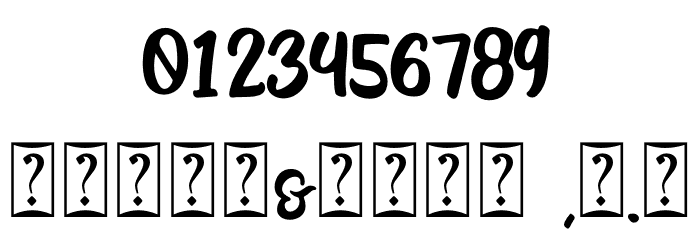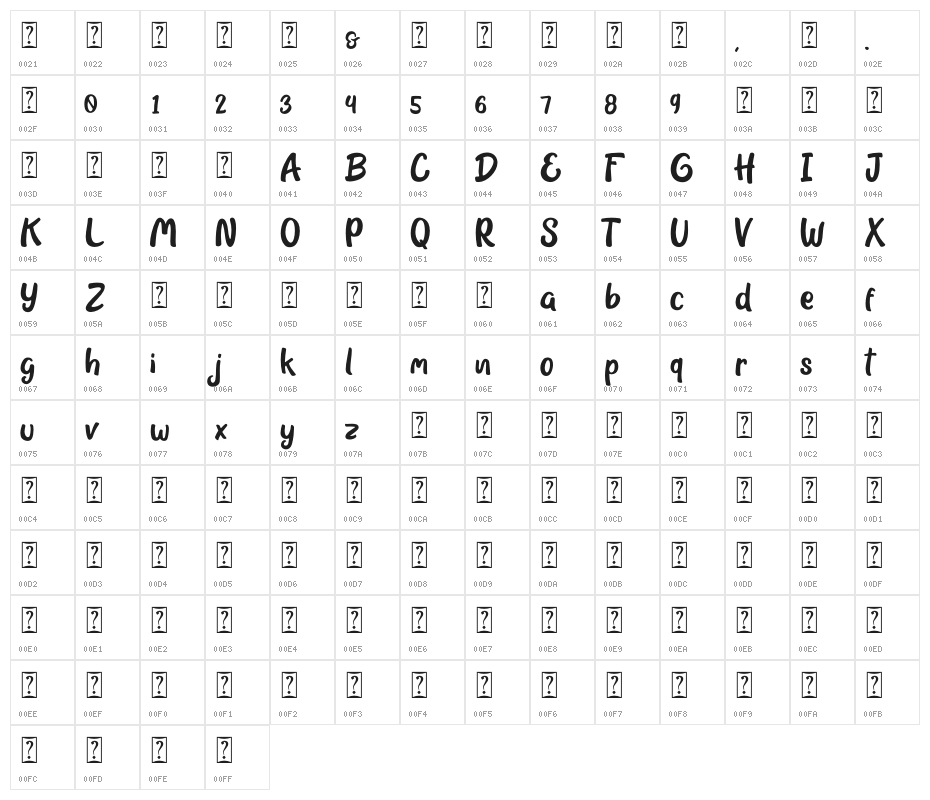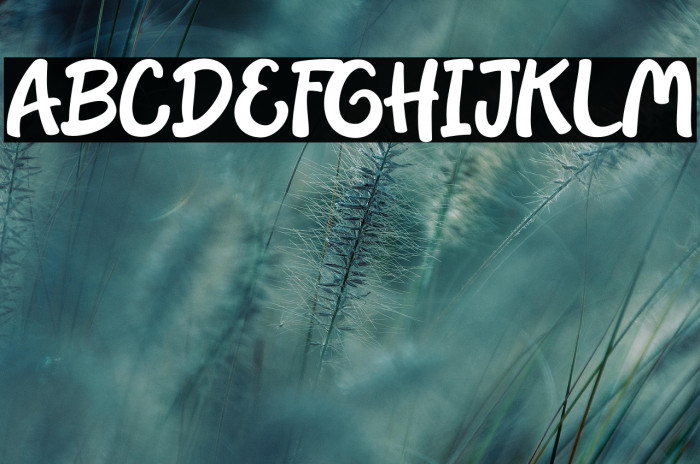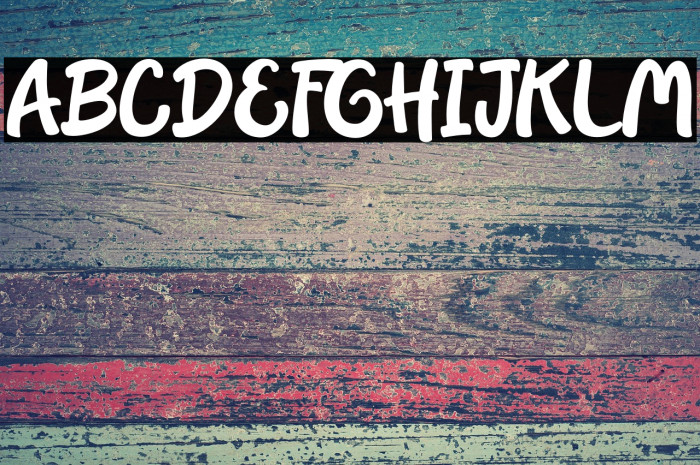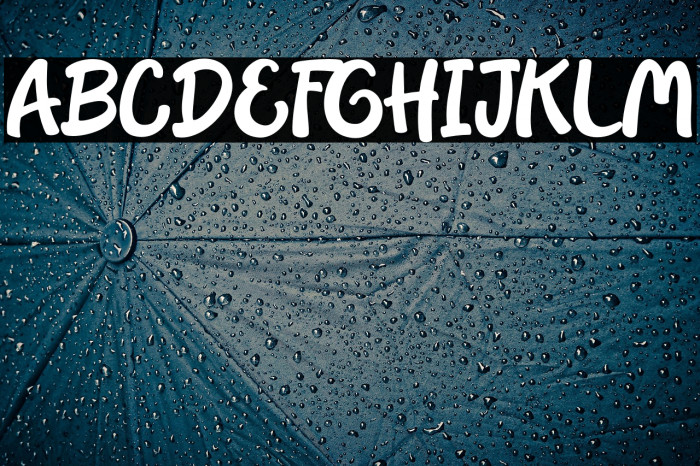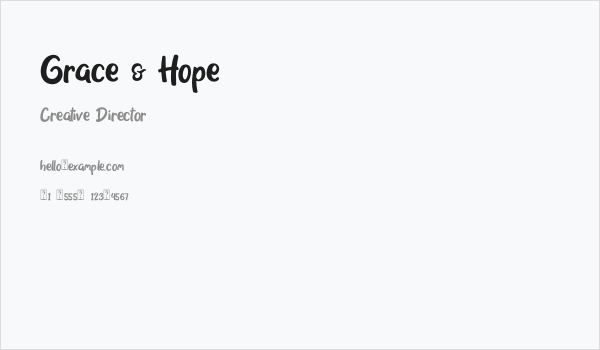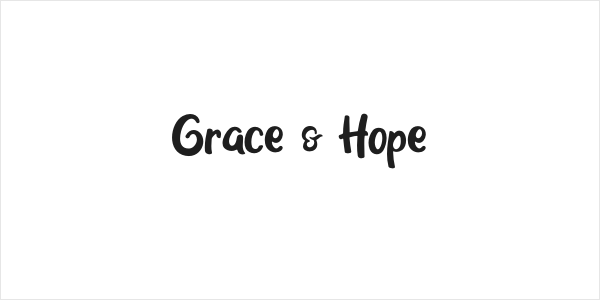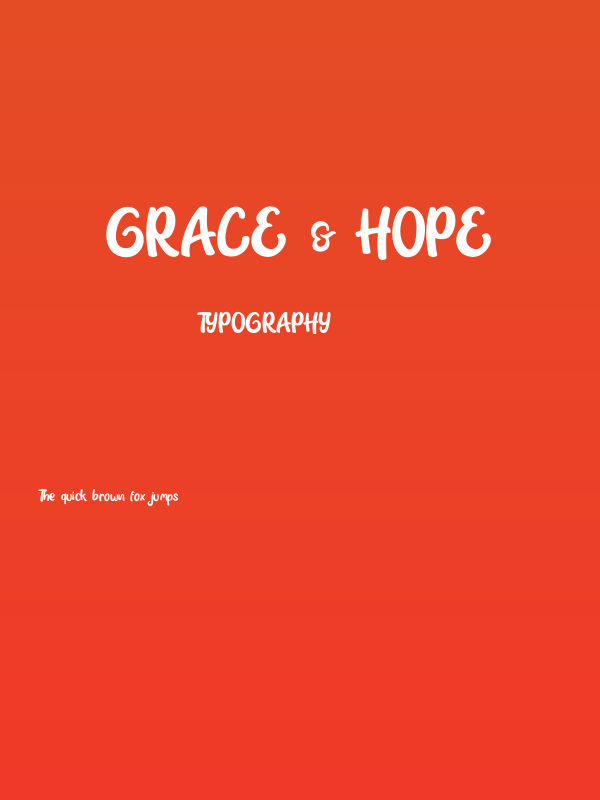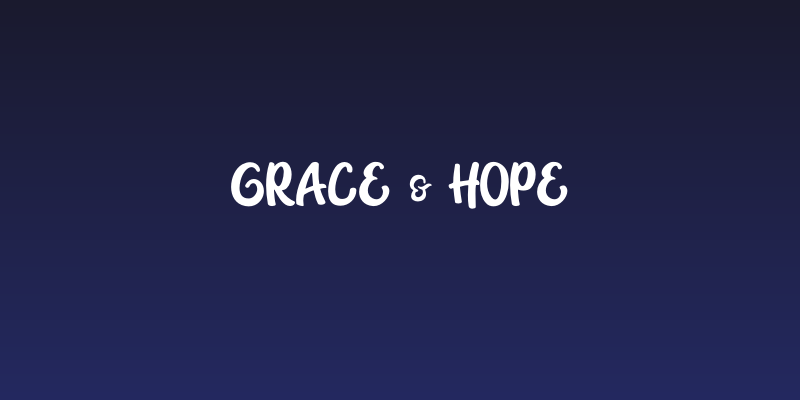
Grace & Hope Font
Grace & Hope Description
This font features a playful and bold handwritten style with smooth, rounded edges. The uppercase letters are slightly larger and more pronounced, while the lowercase letters maintain a consistent flow, adding to its casual and friendly appearance. The numbers are clear and easy to read, matching the overall aesthetic. Special characters are included, maintaining the same whimsical style. This font is perfect for projects that require a personal touch, such as invitations, greeting cards, or branding for creative businesses.
Overall StylePlayful
Use CaseHeadlines, Logos, Invitations
Proposed ProjectsIdeal for invitations, greeting cards, creative branding, and playful designs.